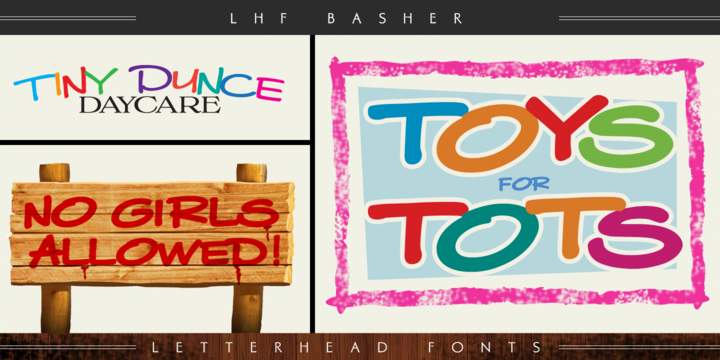
LHF Basher™
by Letterhead Fonts
The LHF Basher Font Family was designed by Dave Correll and published by Letterhead Fonts. LHF Basher contains 2 styles and family package options. More about this family
Fun to use, casual style from Dave Correll. Package includes both Regular and Bold styles.
Designers: Dave Correll
Foundry: Letterhead Fonts